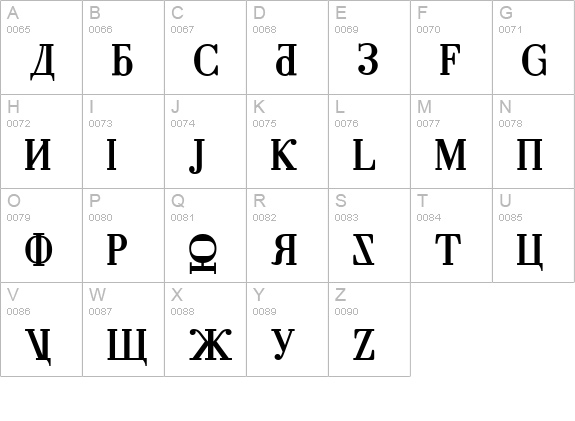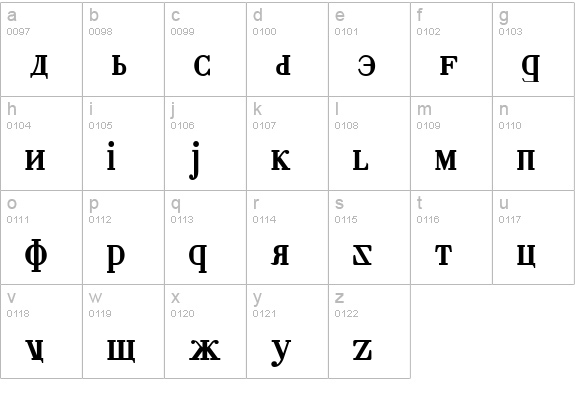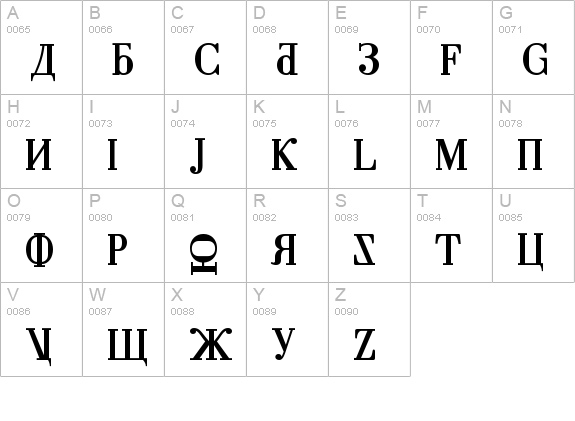
Cyberia Bold is a strong, high-contrast variant in the Cyberia typeface family \xE2\x80\x94 well suited to headlines, attention-grabbing titles, and strong calls-to-action.
Cyberia Bold font is a striking and modern typeface that exudes confidence and energy. Its bold and sleek design makes it perfect for headlines, titles, and branding projects that require a strong and impactful visual presence. The sharp edges and clean lines of Cyberia Bold lend a sense of futuristic appeal, making it ideal for projects that aim to convey a sense of innovation and cutting-edge style. What makes Cyberia Bold even more appealing is that it is available for free download at FontsMarket.com. This means you can easily access this dynamic font and use it in your creative projects without any cost. Whether you're designing a website, creating promotional materials, or crafting social media graphics, Cyberia Bold will help you make a bold statement and stand out from the crowd. Download Cyberia Bold today and let your creativity soar with this versatile and eye-catching font.